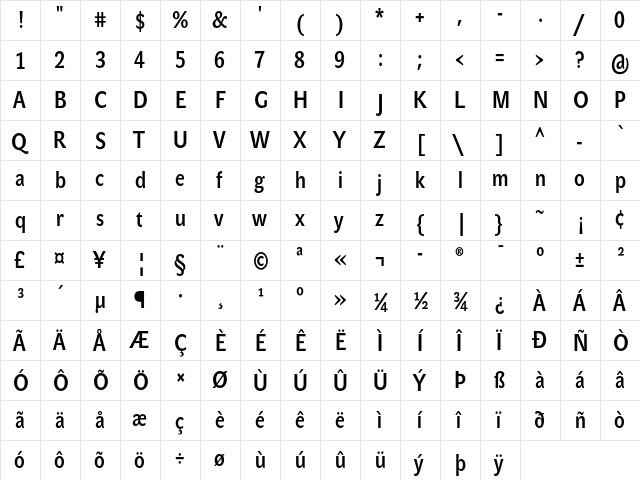
JohnSansCond Med Pro Regular
| Designer | Frantisek Storm |
Design Context for JohnSansCond Med Pro Typeface
JohnSansCond Med Pro takes a measured approach to typography — its balanced proportions and neutral character make it a reliable workhorse for both digital and print work. The condensed width makes it efficient for tight spaces without sacrificing legibility.